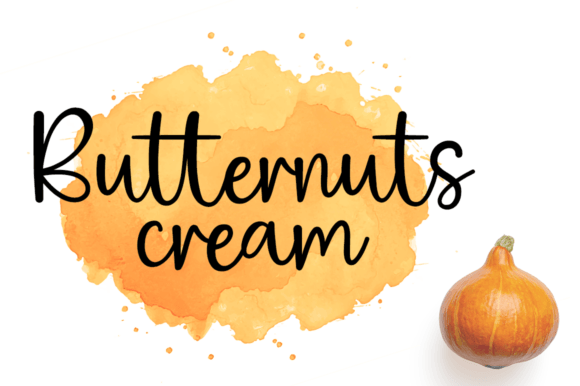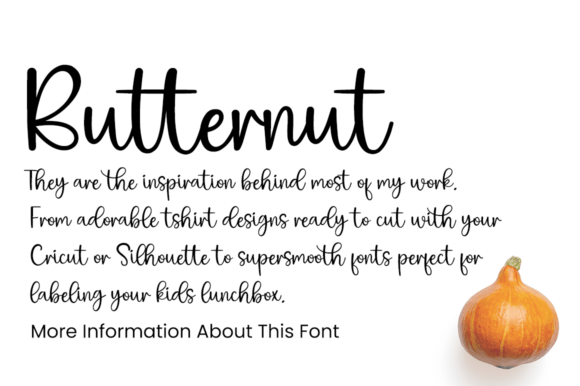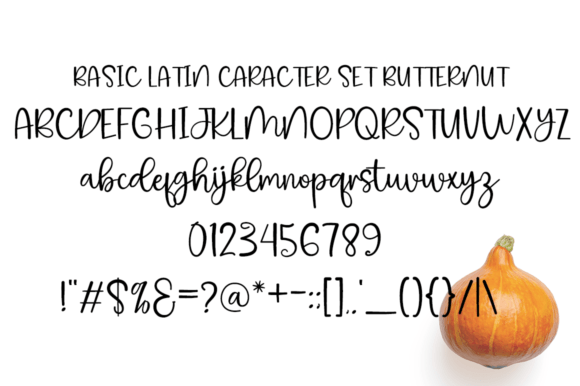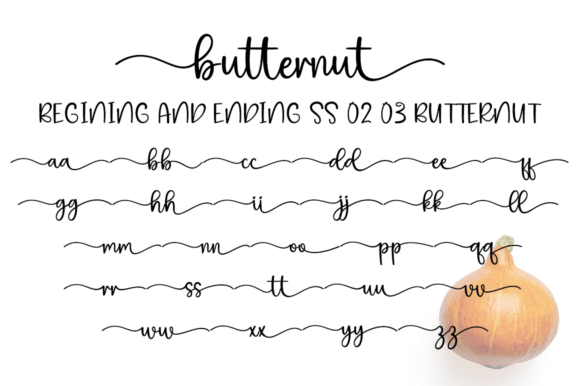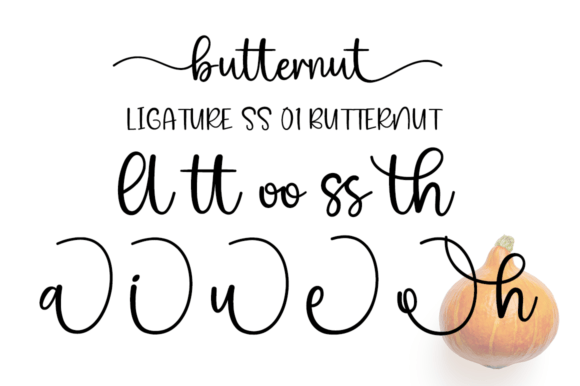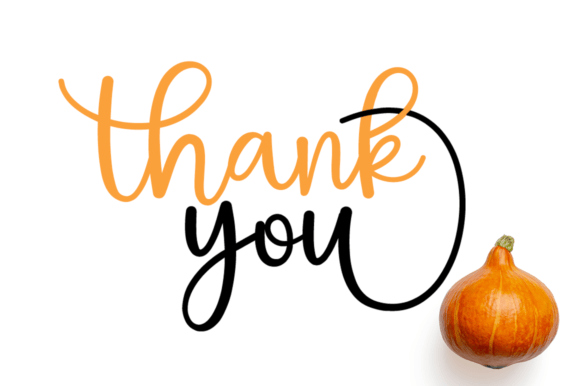
Introducing Butternut Font: Elevate Your Designs with Luxury and Elegance
Are you looking for a font that can add a touch of luxury and sophistication to your design projects? Look no further than Butternut Font, a modern and smooth handwritten script font that is sure to elevate your designs to the next level. In this article, we’ll take a closer look at the features and benefits of Butternut Font, and explore how it can be used to create stunning designs that impress.
What is Butternut Font?
Butternut Font is a beautifully crafted handwritten script font that exudes elegance and sophistication. With its smooth and flowing lines, this font is perfect for creating designs that require a touch of luxury and refinement. Whether you’re working on a branding project, a wedding invitation, or a packaging design, Butternut Font is sure to add a level of sophistication and glamour that will set your design apart from the rest.
Key Features of Butternut Font
So, what makes Butternut Font so special? Here are just a few of the key features that make this font a must-have for designers and crafters:
- Modern and Smooth Design: Butternut Font features a modern and smooth design that is perfect for creating designs that require a touch of elegance and sophistication.
- PUA Encoded: Butternut Font is PUA encoded, which means that you can access all of the amazing glyphs and ligatures with ease. This makes it easy to create complex designs and add a level of sophistication to your work.
- Luxury Spark: Butternut Font is designed to add a luxury spark to any design project. Whether you’re working on a high-end branding campaign or a special event invitation, this font is sure to impress.
Benefits of Using Butternut Font
So, why should you choose Butternut Font for your design projects? Here are just a few of the benefits of using this amazing font:
- Elegance and Sophistication: Butternut Font adds a level of elegance and sophistication to any design project. Whether you’re working on a luxury branding campaign or a special event invitation, this font is sure to impress.
- Versatility: Butternut Font is a versatile font that can be used for a wide range of design projects. From branding and packaging to wedding invitations and event marketing materials, this font is perfect for any project that requires a touch of luxury and sophistication.
- Easy to Use: Butternut Font is easy to use and can be accessed with ease using any design software. The PUA encoding makes it easy to access all of the amazing glyphs and ligatures, so you can focus on creating stunning designs.
How to Use Butternut Font in Your Designs
So, how can you use Butternut Font in your designs? Here are a few ideas to get you started:
- Branding and Packaging: Use Butternut Font to create luxury branding and packaging designs that impress. From high-end product labels to luxury packaging, this font is perfect for any project that requires a touch of elegance and sophistication.
- Wedding Invitations: Butternut Font is perfect for creating stunning wedding invitations that set the tone for a luxurious and sophisticated event.
- Event Marketing Materials: Use Butternut Font to create event marketing materials that impress, including flyers, posters, and social media graphics.
In conclusion, Butternut Font is a modern and smooth handwritten script font that is perfect for designers and crafters who want to add a touch of luxury and sophistication to their design projects. With its PUA encoding and amazing glyphs and ligatures, this font is easy to use and can be accessed with ease using any design software. Whether you’re working on a branding project, a wedding invitation, or a packaging design, Butternut Font is sure to elevate your designs to the next level.